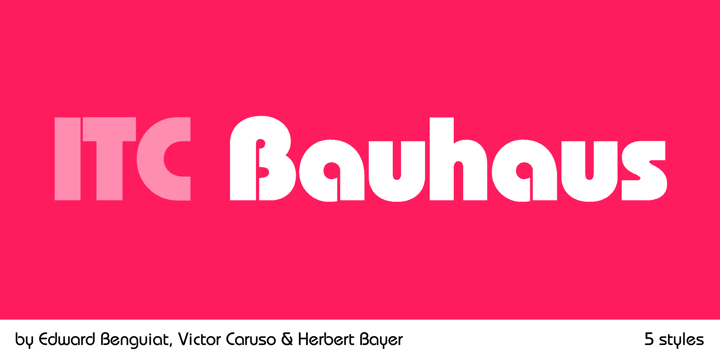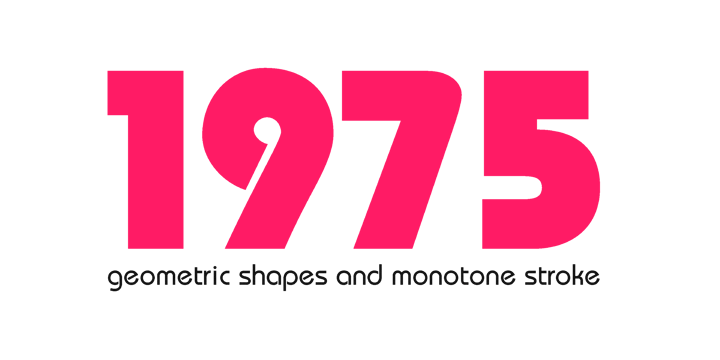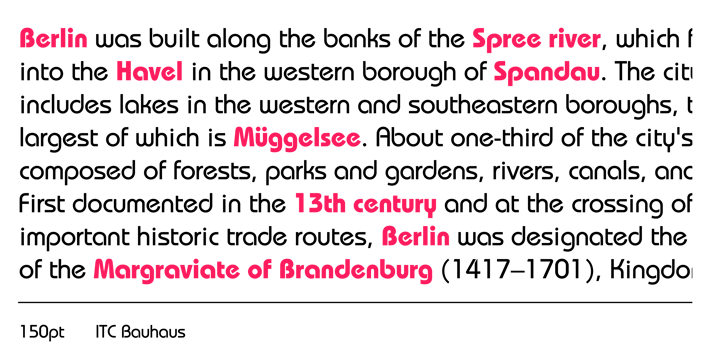
Herbert Bayer
Hugely influential Austrian artist, designer, theoretician and teacher. He joined the Bauhaus in Weimar as a student in 1921. As a teacher he was primarily responsible for the geometric, asymmetric style we now know as Bauhaus’. Bayer drew the Universal Alphabet that so influenced Paul Renner, among others. He fled Nazi Germany in 1938, where it had become impossible to continue work (the Bauhaus had been forced to shut down in 1933), moving to New York. He lived in the US until his death in 1985.